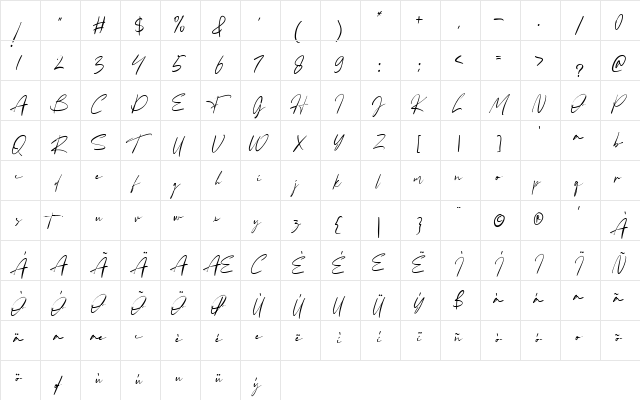
Fatigod Regular
Design Context for Fatigod Typeface
Fatigod is a composed and adaptable typeface that performs quietly and consistently across a wide range of design contexts.